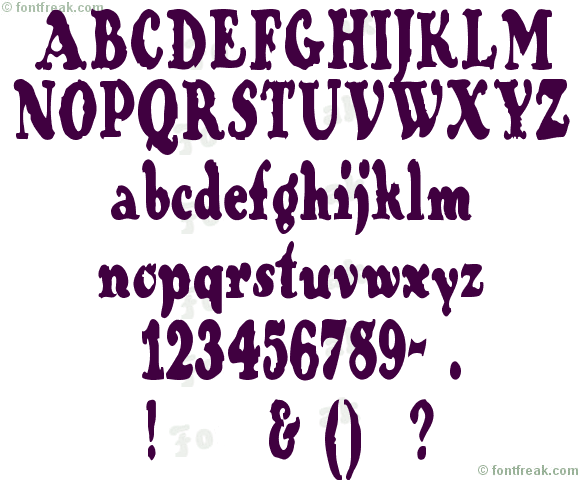
Contraband
About Contraband
Contraband by Marty Bee is a distinctive display font that captures attention with its bold, playful character. This freeware typeface features a unique, slightly irregular style that evokes a sense of whimsy and creativity. The strokes are thick and uneven, giving it a hand-drawn appearance that adds a personal touch to any design project. The contrast between the heavier strokes and the lighter elements creates a dynamic visual interest, while the spacing is thoughtfully balanced to ensure readability without sacrificing style. Decorative elements, such as the exaggerated curves and playful serifs, enhance its charm, making it suitable for a variety of creative applications.
This font shines in settings that call for a fun and informal aesthetic. It is perfect for designing eye-catching movie posters that aim to intrigue and attract audiences. Additionally, Contraband works wonderfully for restaurant menus, where its unique flair can enhance the dining experience. Wedding invitations also benefit from its charming character, offering a memorable touch to special occasions. Furthermore, small business branding can leverage this font to create an inviting and approachable image that resonates with customers.
What sets Contraband apart is its ability to combine fun with functionality. Its distinct personality makes it a standout choice for anyone looking to make a statement in their designs. Whether used sparingly for emphasis or as the main typeface, Contraband adds a layer of creativity that is sure to leave a lasting impression.